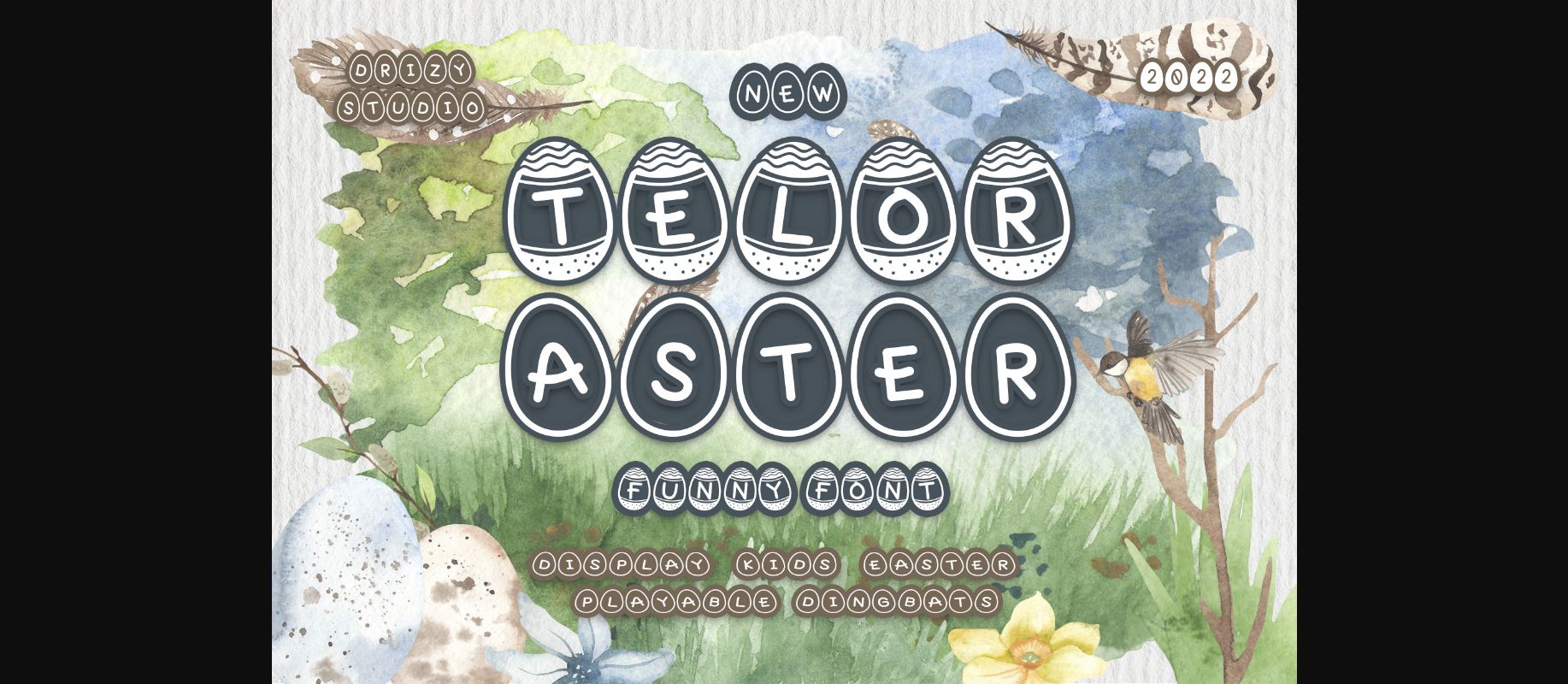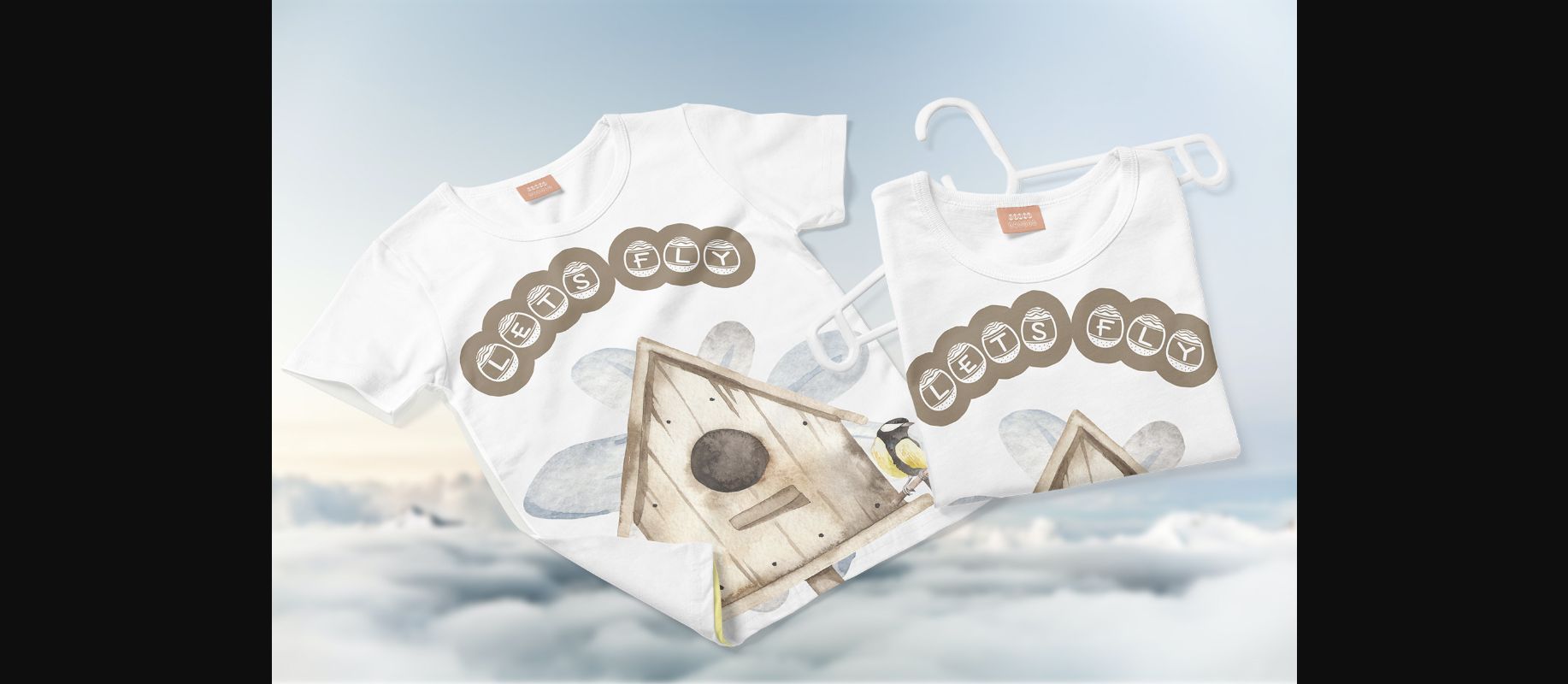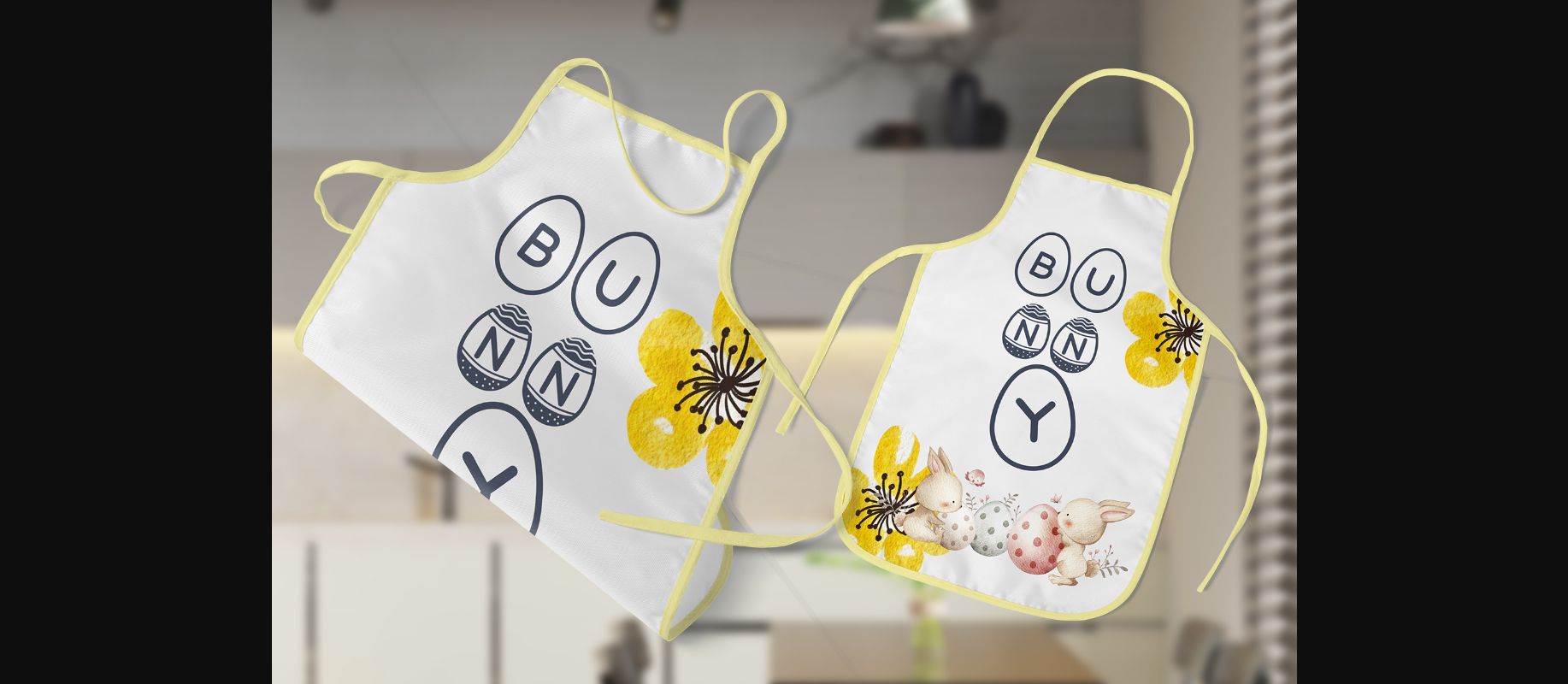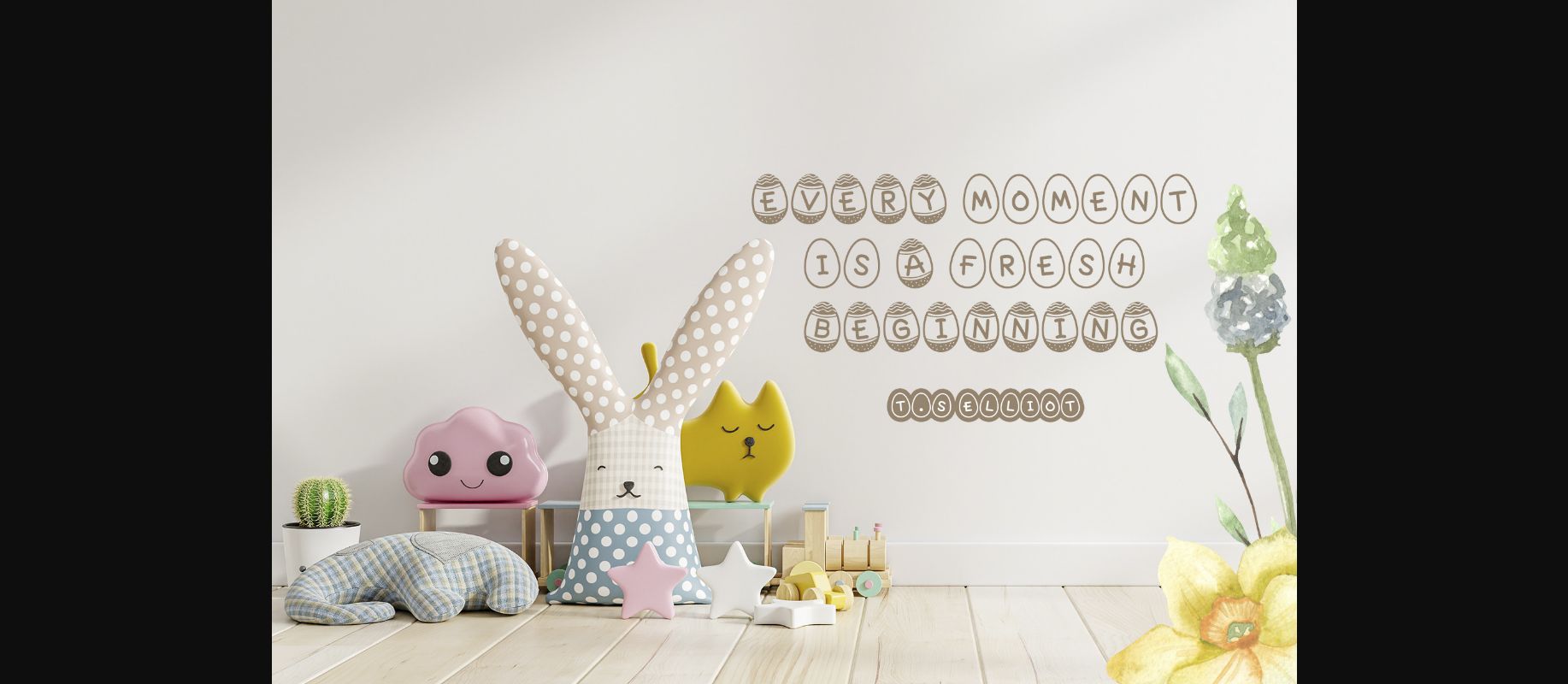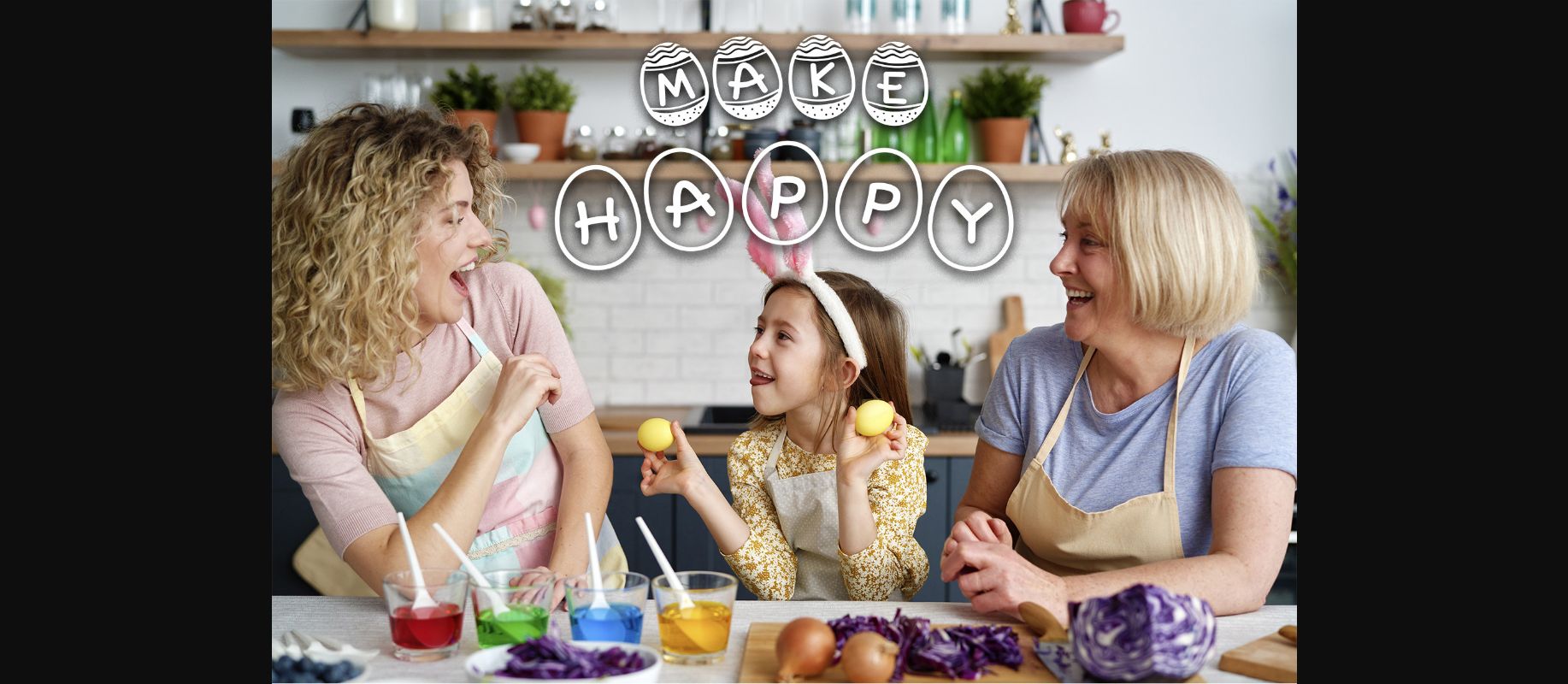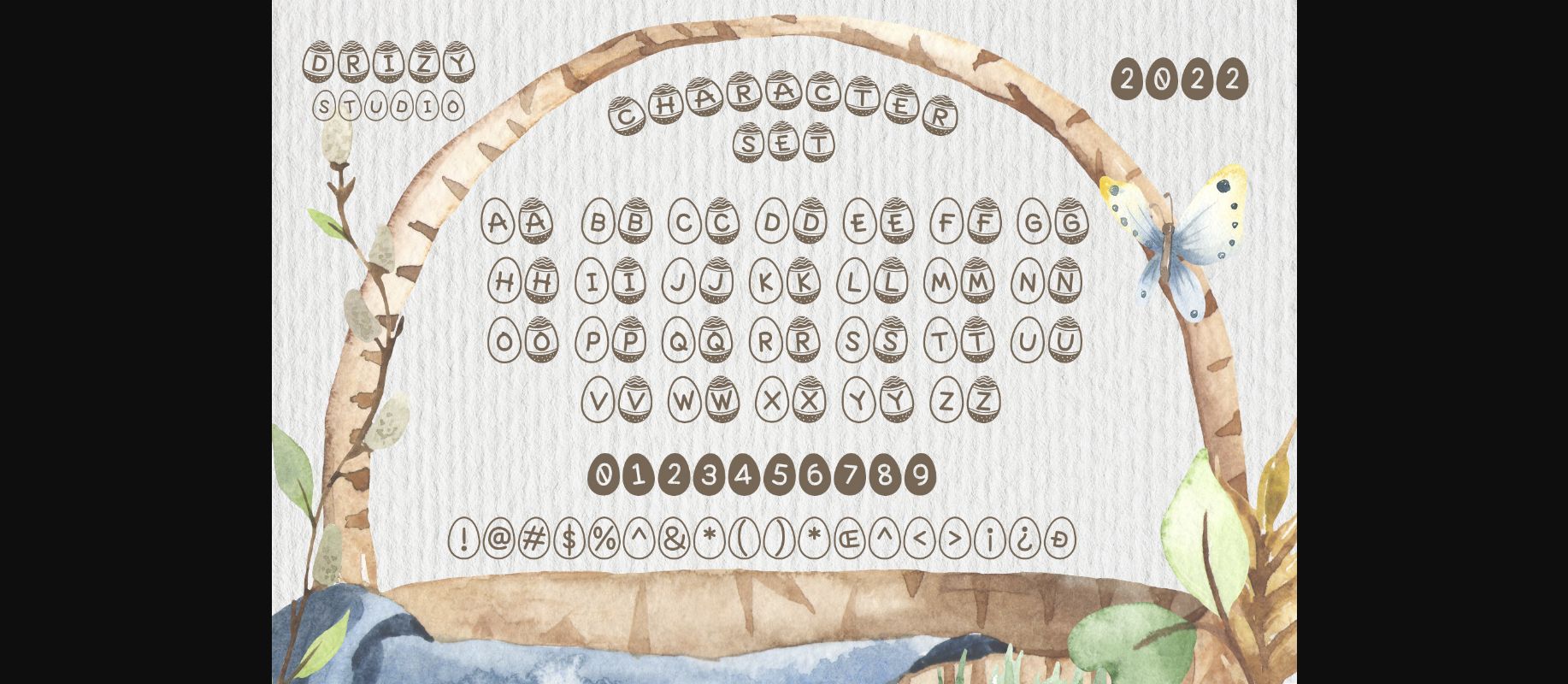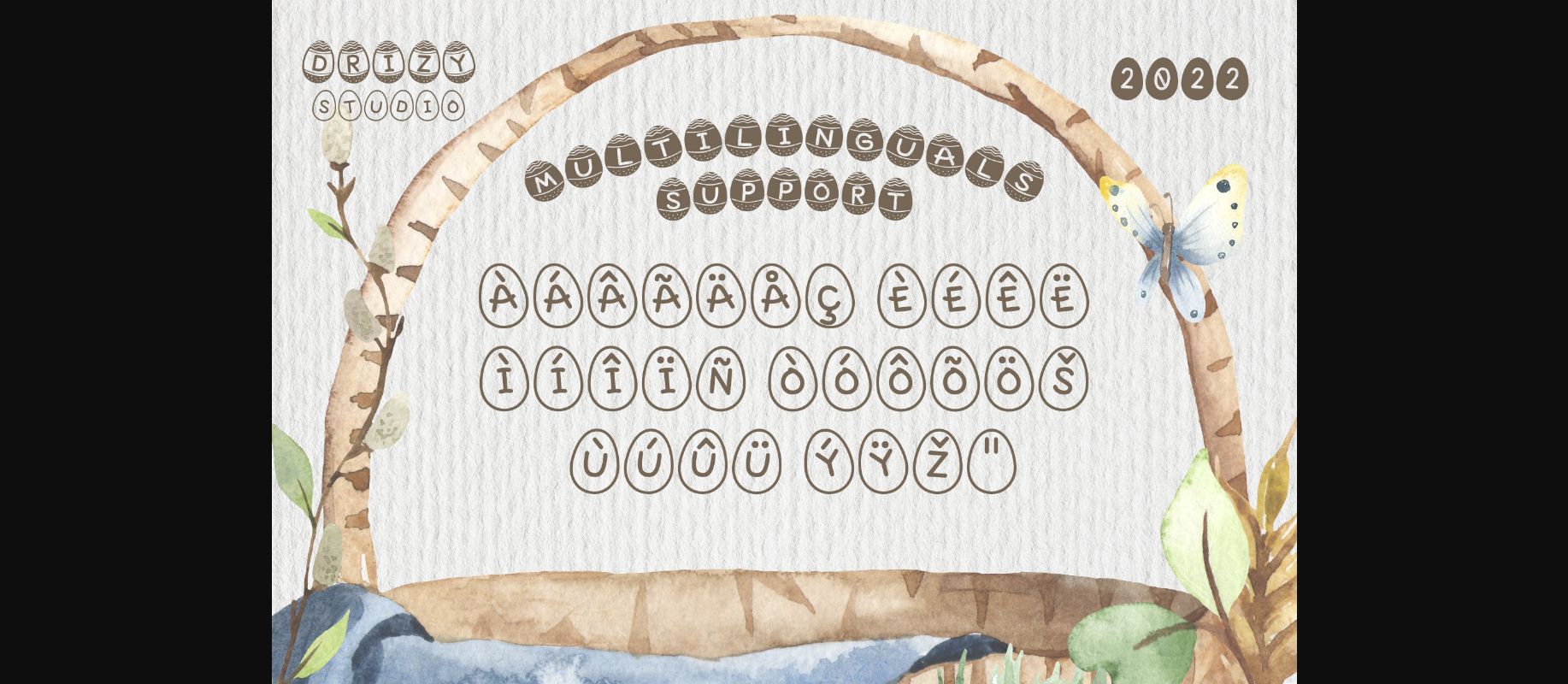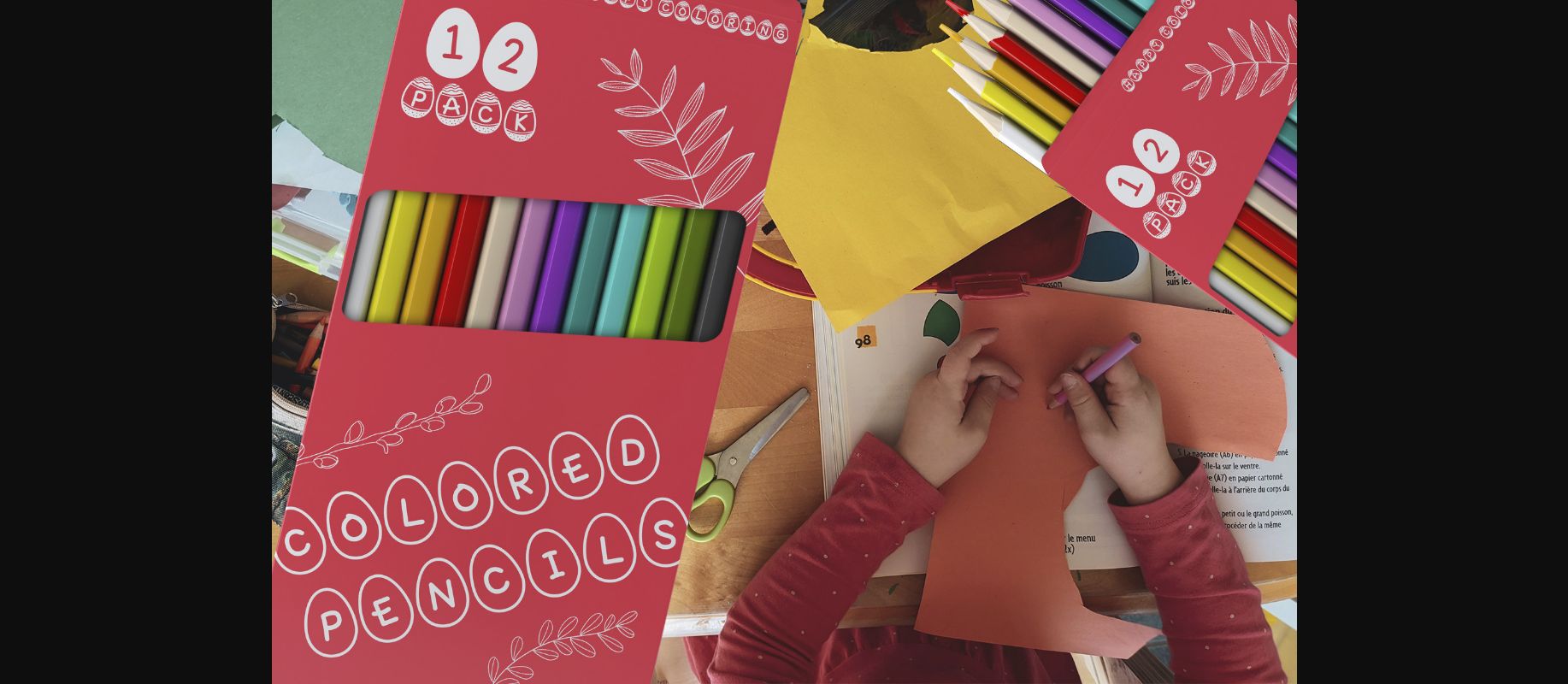
HomeDecorative FontsTeloraster Font Decorative Fonts Teloraster Font FacebookXPinterestWhatsApp 1 of 11 ... Teloraster Font Poster 2... Teloraster Font Poster 3... Teloraster Font Poster 4... Teloraster Font Poster 5... Teloraster Font Poster 6... Teloraster Font Poster 7... Teloraster Font Poster 8... Teloraster Font Poster 9... Teloraster Font Poster 10... Teloraster Font Poster 11... About Teloraster Font Teloraster is Decorative Font, it is ideal for your Easter related design ideas. Simple but with a strong visual effect, this font will instantly make your creation more appealing. DOWNLOAD NOW People also explored Fat Sally Marigold Font Munchberg Font Bardella Font Donkiciro Font Baby to School Font Easter Patrick Font Crvwlinx Font Brittany Angella Font 340 0 TagsTeloraster Font Previous articleEasterboost FontNext articleApril Dawn Font LEAVE A REPLY Cancel reply Comment: Please enter your comment! Name:* Please enter your name here Email:* You have entered an incorrect email address! Please enter your email address here Website: Save my name, email, and website in this browser for the next time I comment. Personal Use Free Bright Dreams Personal Use Free Read more about this font Rionaldo Angelo Personal Use Free Read more about this font Densmore Personal Use Free Read more about this font Cheque Personal Use Free Read more about this font BLOG Fonts That Capture the Spirit of New York City New York City is more than just a place—it’s an experience, a rhythm, a visual language... How to Install and Use Fonts on Windows, macOS, and Web Projects Best Fonts for YouTube Videos: Make Your Thumbnails Stand Out Free Fonts Risk: Why Free Fonts Can Be Dangerous for Designers